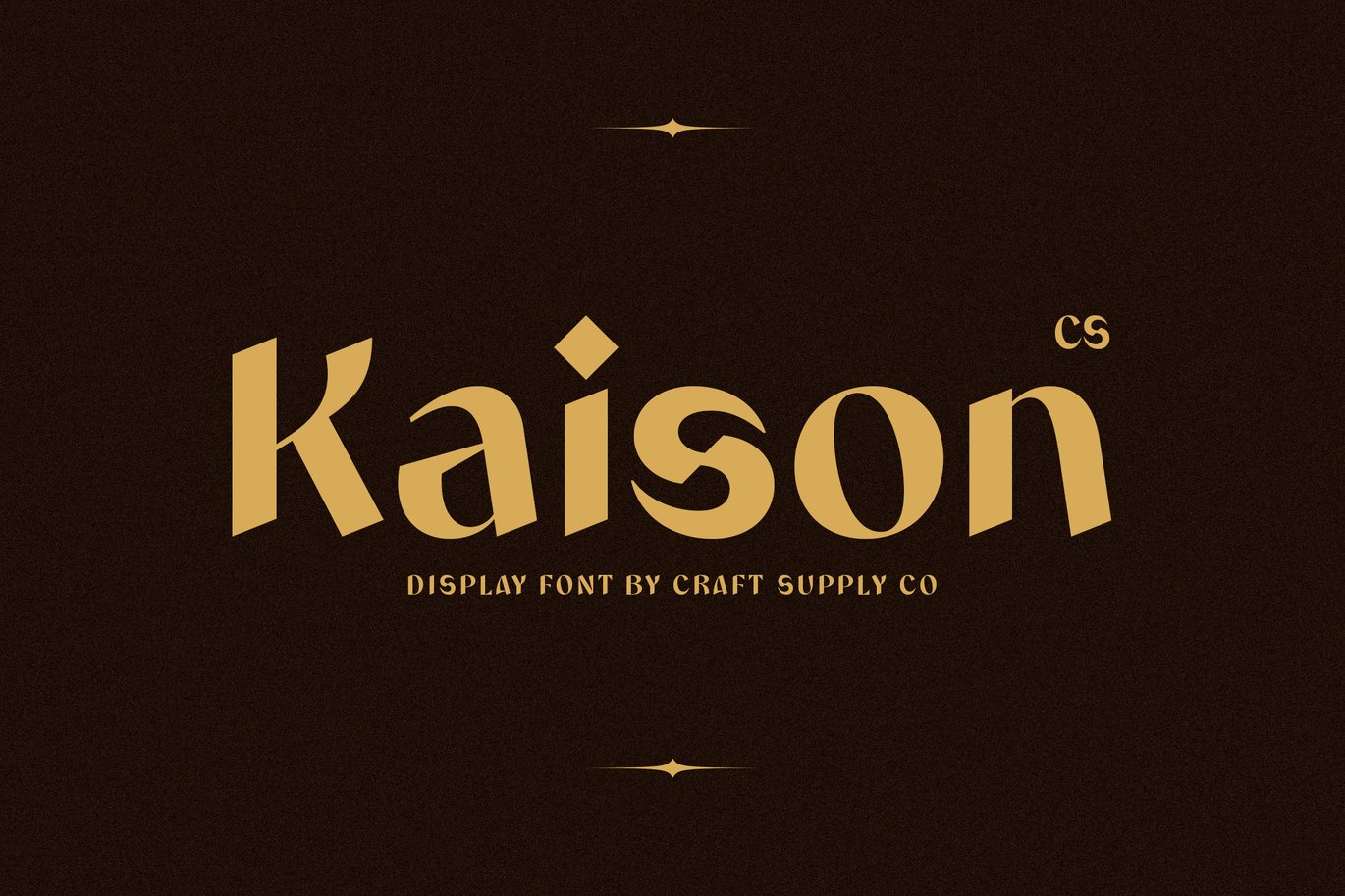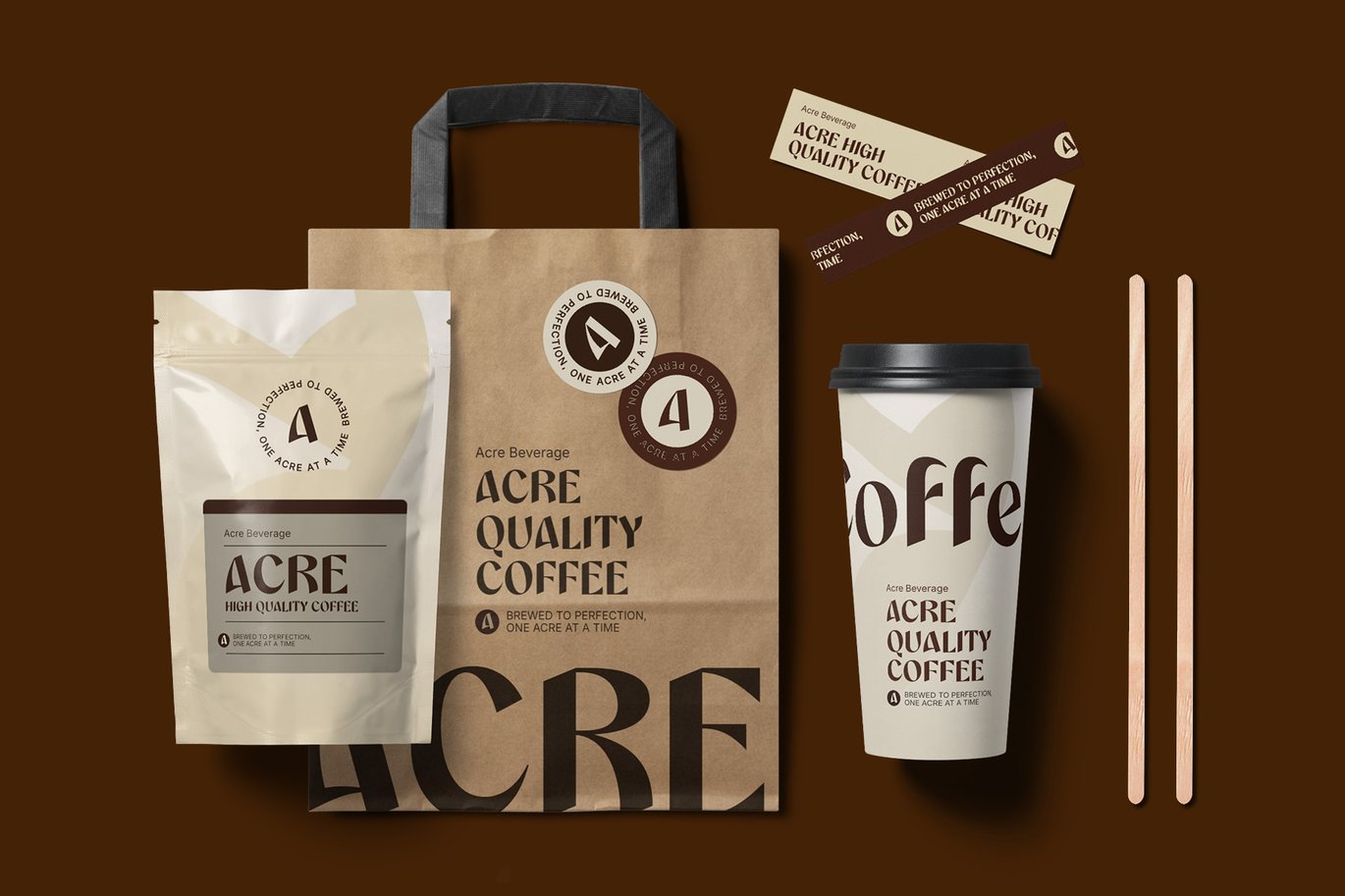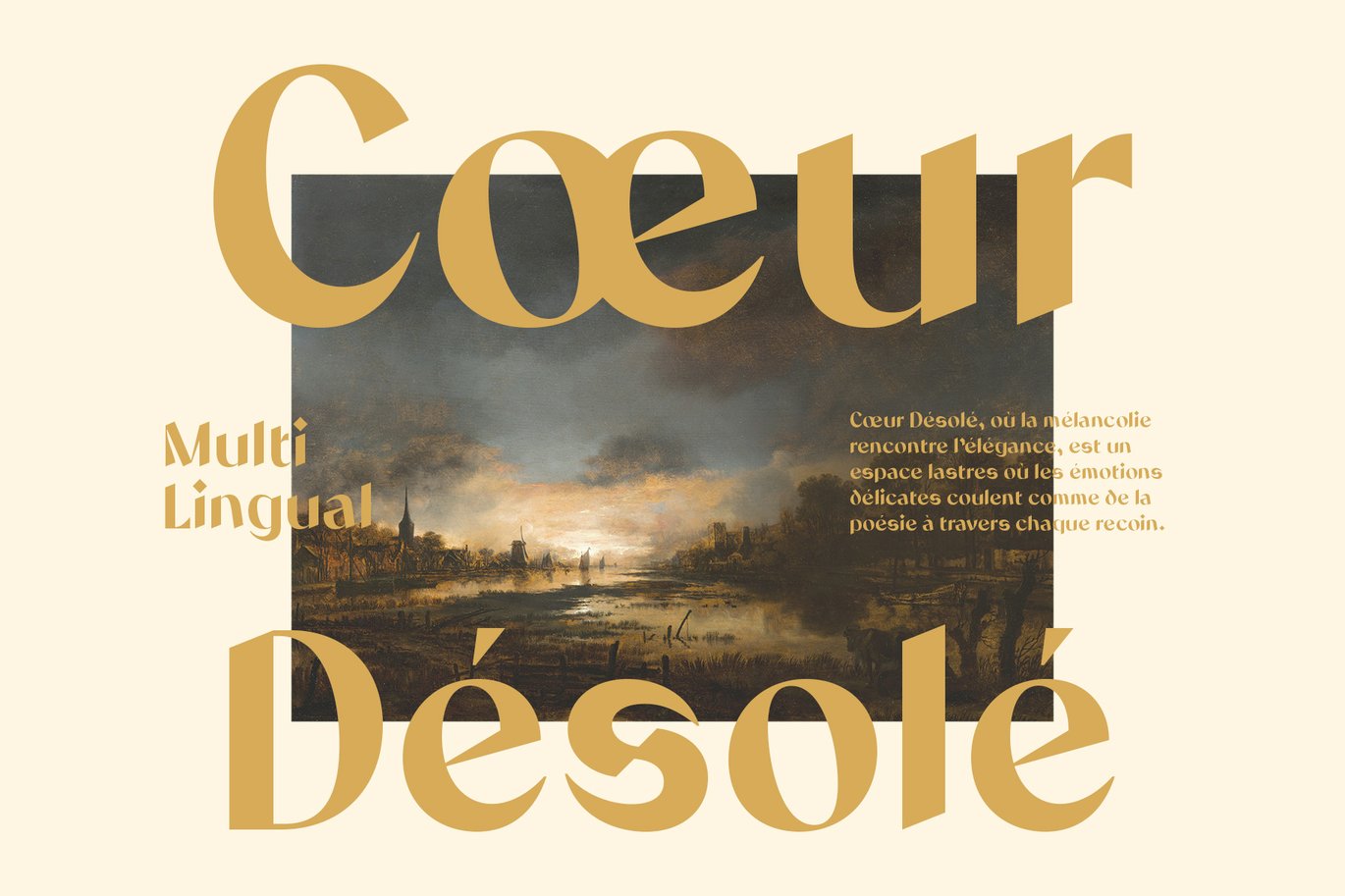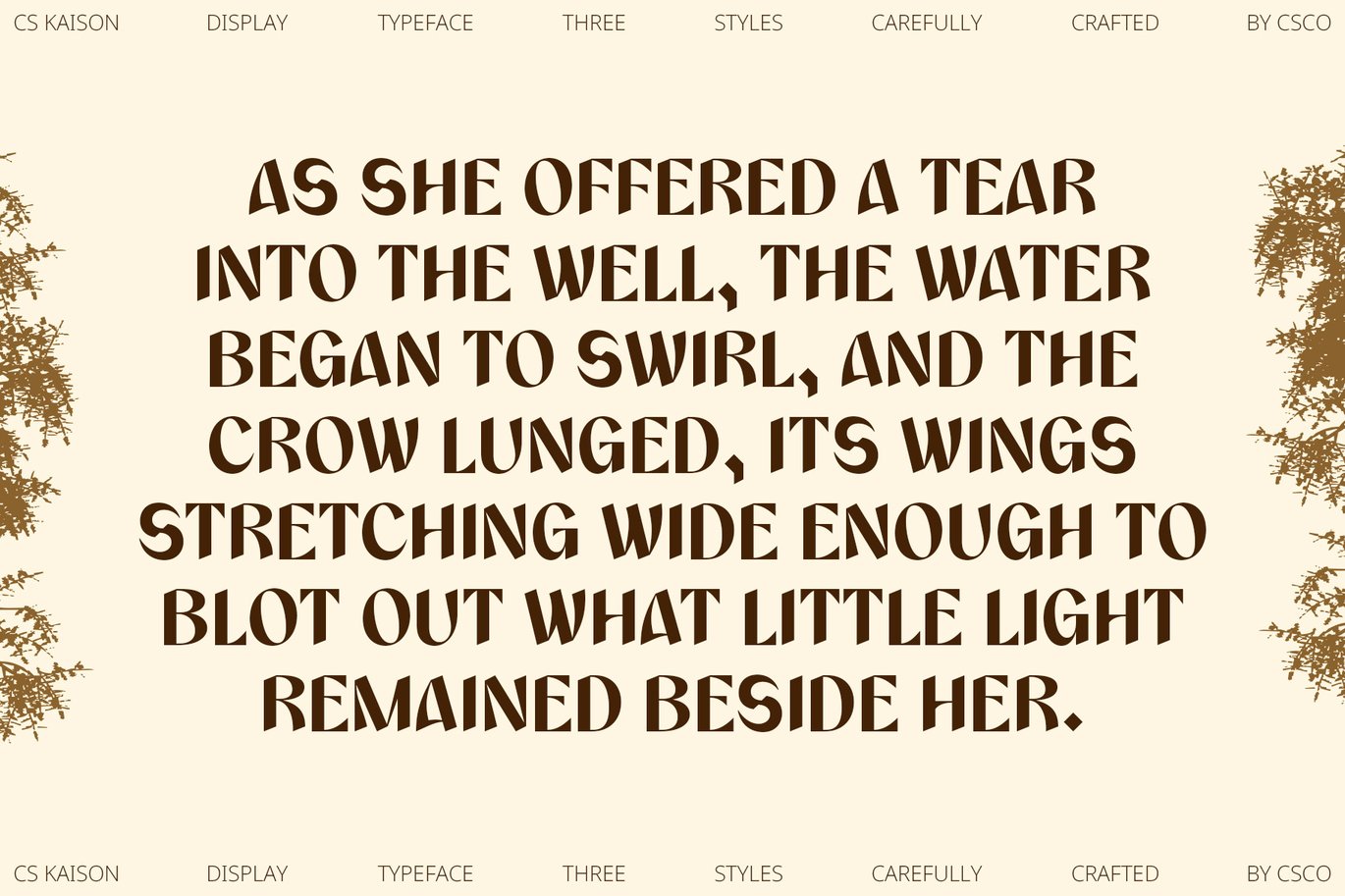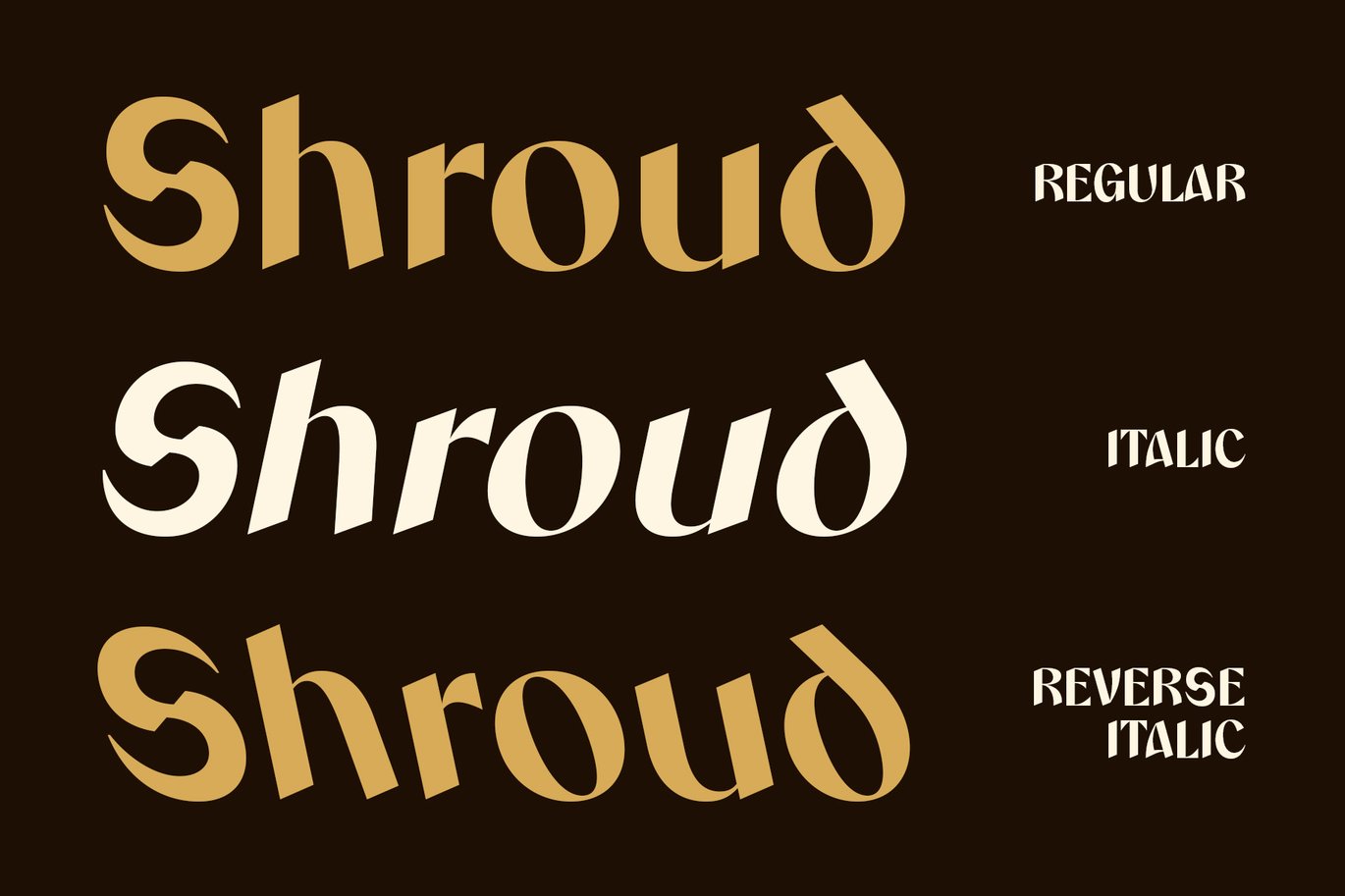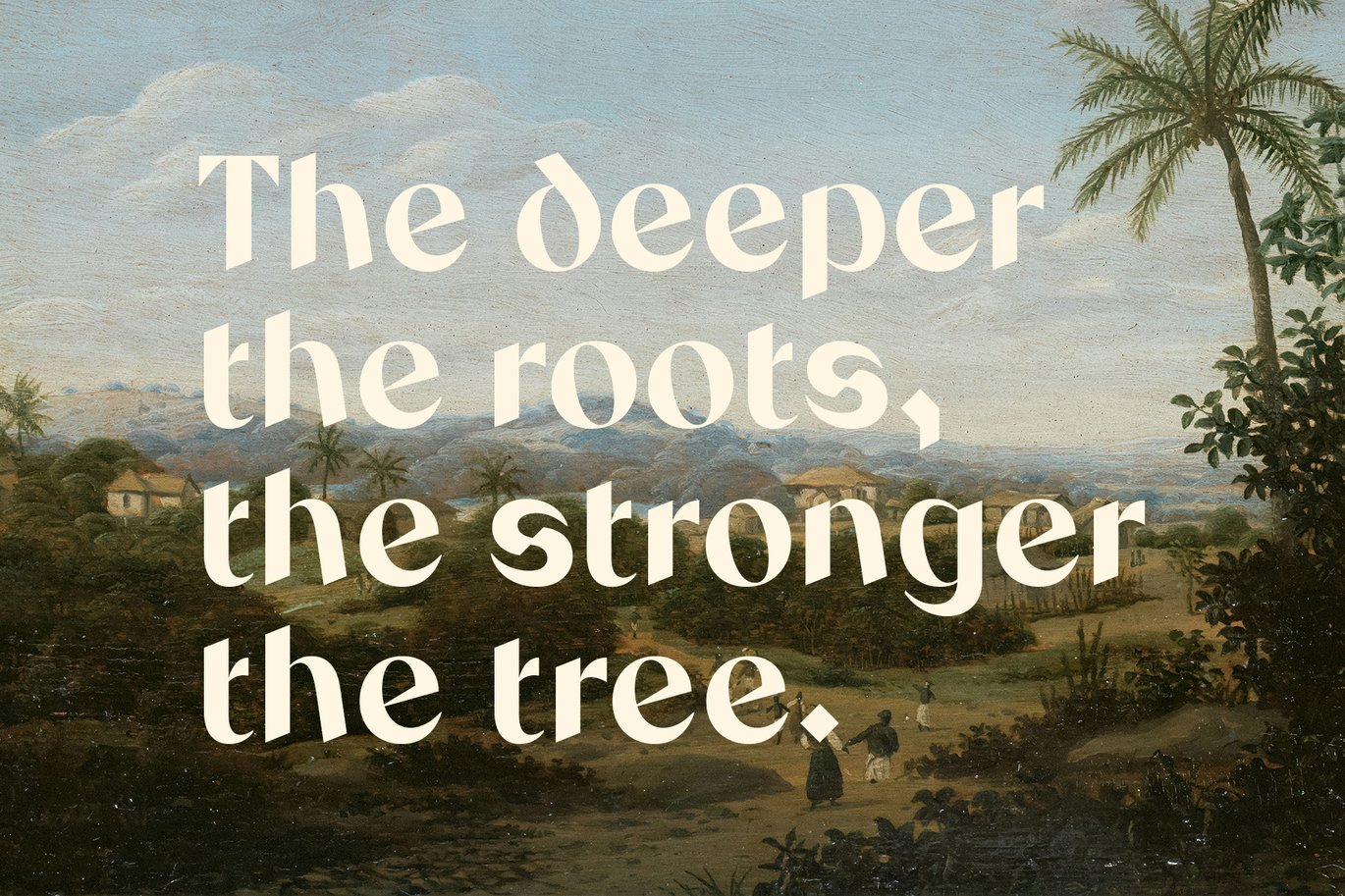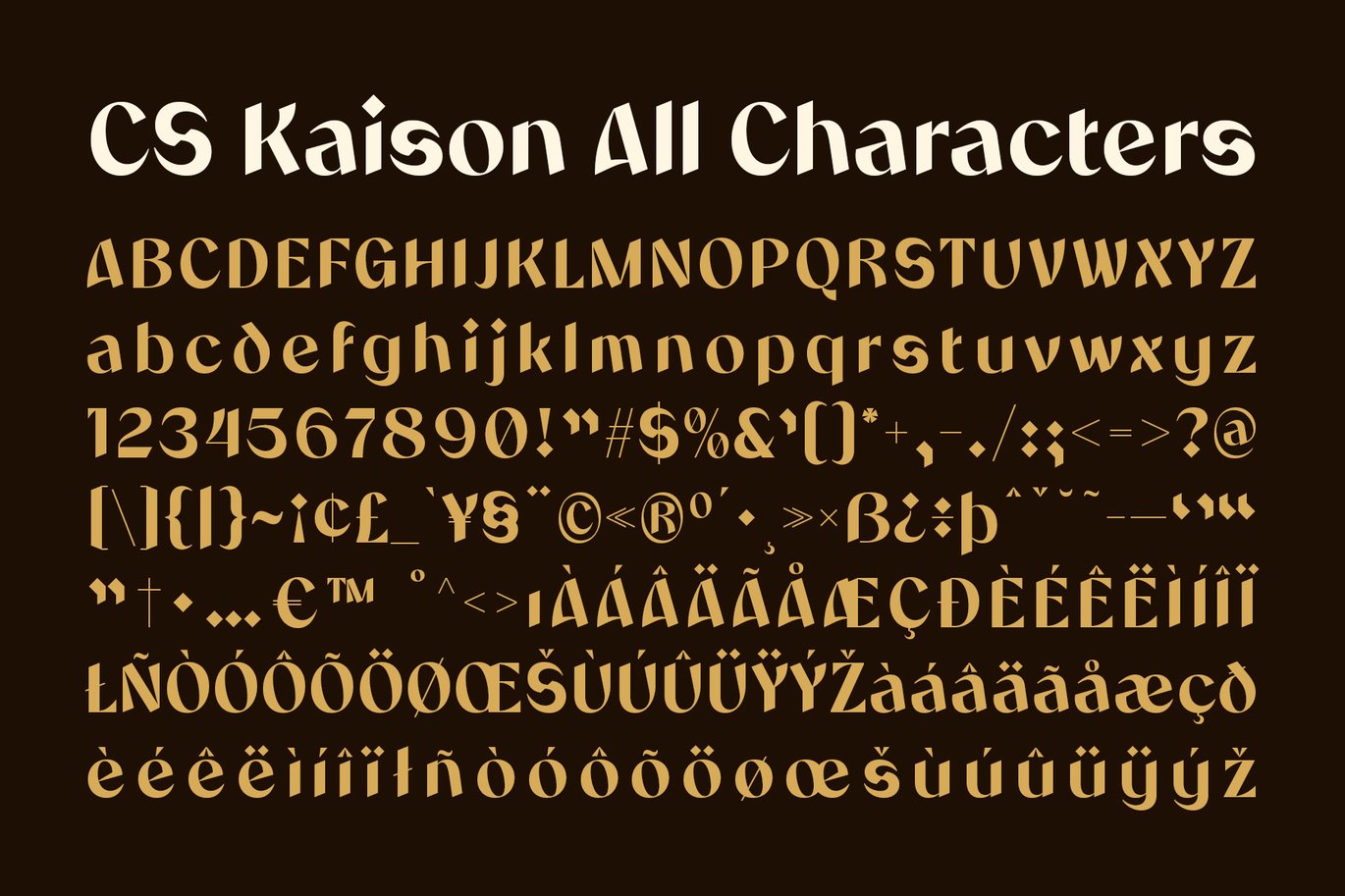
Kaison – Classic Font
CS Kaison – Classic Font
A Classic Vintage Sans-Serif Design
CS Kaison is a classic vintage sans-serif font that effortlessly combines clean, simple lines with a subtle retro charm. This font exudes a sense of sophistication, making it ideal for projects that seek to evoke nostalgia with a refined and polished look.
Balance of Formality and Warmth
With its perfect balance of formal structure and inviting warmth, CS Kaison brings a unique character to any design. Its geometric forms ensure a modern, clean appearance, while the soft curves and subtle details lend a touch of warmth and personality. Whether you’re working on branding, editorial design, or nostalgic layouts, this font offers the versatility to adapt to a variety of creative projects.
Perfect for Nostalgic and Sophisticated Designs
CS Kaison is an excellent choice for designs that aim to evoke a sense of nostalgia, sophistication, and timeless elegance. Its classic appeal makes it ideal for vintage-inspired branding, logo design, editorial layouts, and more. Whether you’re designing a high-end publication, a retro-inspired website, or a sleek logo, CS Kaison delivers the perfect blend of past and present, making it a versatile and stylish option for any project.